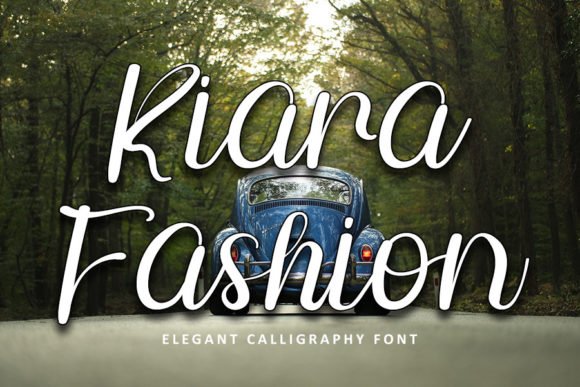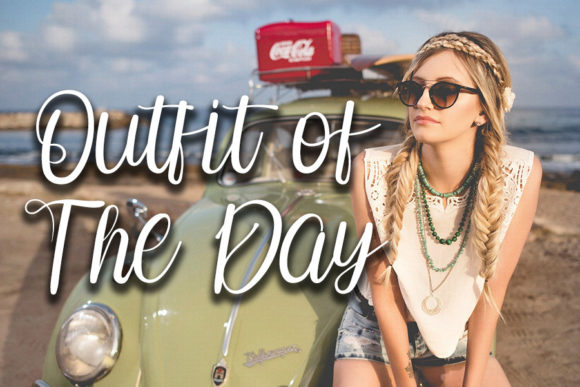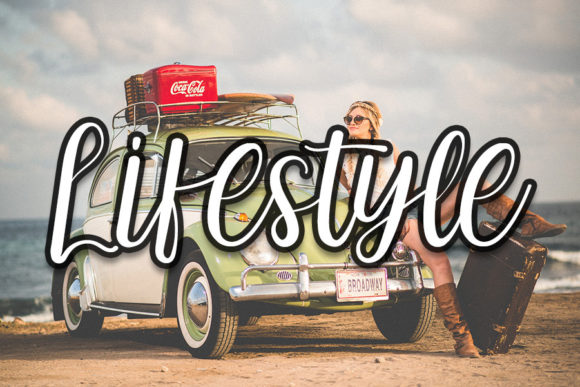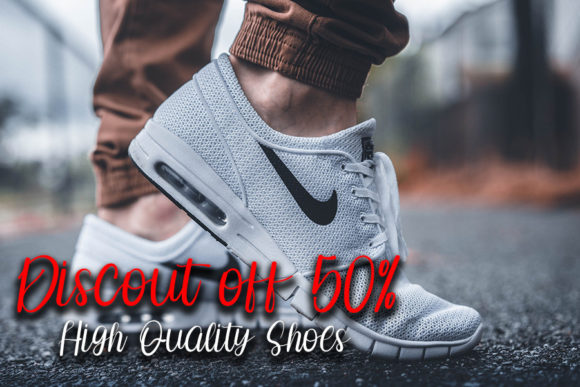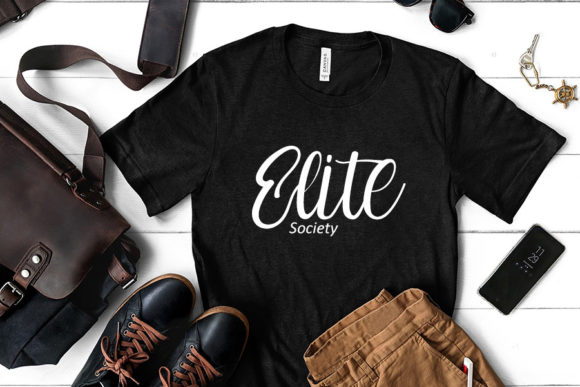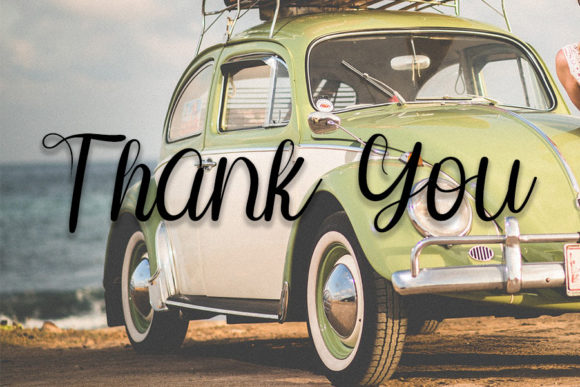
The Perfect Blend of Classic Elegance and Modern Flair
As a designer, have you ever stared at a blank page, waiting for the perfect font to bring your vision to life? That’s exactly where I found myself a few months ago, and it was then that I stumbled upon the charming Kiara Fashion Font. Its unique blend of classic calligraphic influences and modern flair instantly caught my attention, and I knew I had to learn more.
Developed to become a true favorite among designers, Kiara Fashion Font is a friendly handwritten font that exudes a sense of sophistication and elegance. Its versatility makes it an invaluable asset for any creative project, from fashion and beauty to food and lifestyle branding. With Kiara Fashion Font, you can add a touch of warmth and personality to your designs, setting them apart from the crowd.
Kiara Fashion Font Key Features
- Font Family: Kiara Fashion Font is a stylish, modern script font designed for fashion, beauty, and lifestyle brands.
- Character Count: The font includes 230 characters, including uppercase and lowercase letters, numbers, and special characters.
- Unique Characteristics: Kiara Fashion Font features a unique, handwritten style with elegant flourishes, making it perfect for creating eye-catching designs and logos.
Designer Review: Kiara Fashion Font
Overall, I think the Kiara Fashion Font is a solid choice for designers looking to add a touch of elegance to their projects. ✨ It has a sophisticated, high-end feel that’s perfect for luxury brands, fashion magazines, or any design that wants to convey a sense of refinement.
- ✨ Elegant and refined aesthetic: The font’s curves and lines are perfectly balanced, creating a sense of harmony and visual appeal.
- ✨ Versatile: Kiara Fashion Font works well in both body text and display contexts, making it a great choice for a wide range of design applications.
- ✨ Beautiful ligatures: The font’s ligatures add an extra layer of sophistication and depth to the overall design.
- ⚠️ Limited font sizes: The font may not be the best choice for very large or very small text sizes, as the details can get lost at these scales.
- ⚠️ Not ideal for informal designs: While Kiara Fashion Font is perfect for high-end designs, it may not be the best fit for more casual or playful projects.
Overall, I think the Kiara Fashion Font is a great addition to any designer’s toolkit. With its elegant aesthetic and versatile use cases, it’s sure to be a favorite among designers who want to add a touch of sophistication to their projects.
Tips for Getting the Most Out of Kiara Fashion Font
For optimal results, use Kiara Fashion Font in combination with bold or italic styles to add emphasis to your text.
Experiment with different font sizes and colors to create visual interest and hierarchy in your design.
Kiara Fashion Font is ideal for:
- Fashion and beauty branding
Alternatives to Kiara Fashion Font
Playfair Display is a luxurious and elegant script font that is perfect for high-end fashion designs, luxury branding, and special events. It has a classic and sophisticated feel that makes it ideal for creating a sense of opulence and glamour.
Comparison to Kiara Fashion Font: While Kiara Fashion Font is a more modern and trendy font, Playfair Display has a timeless and classic feel that makes it more versatile and suitable for a wide range of designs.
Great Vibes is a beautiful and elegant script font that is perfect for creating a sense of sophistication and luxury. It has a soft and flowing feel that makes it ideal for fashion designs, branding, and packaging.